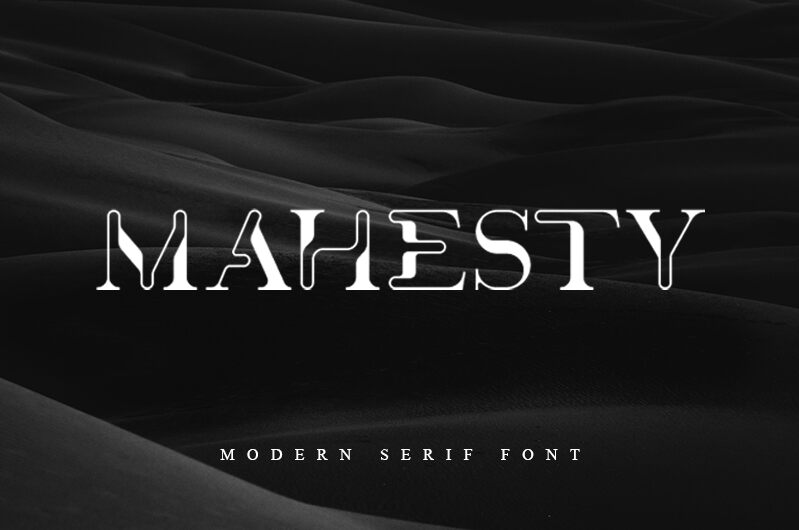
Mahesty, a modern serif display font designed by Darman Kadir, effortlessly blends elegance with contemporary appeal. Its semi-light weight and expanded width make it ideal for projects seeking a touch of sophistication without sacrificing readability.
With its clean lines and graceful curves, Mahesty is perfect for fashion magazines looking to capture attention on glossy spreads. It also lends itself well to luxury branding campaigns, evoking an air of exclusivity and refinement. Whether used in editorial layouts or high-end packaging designs, Mahesty adds a touch of class to any project.